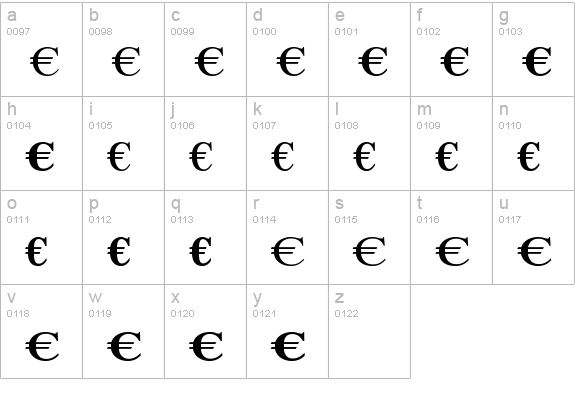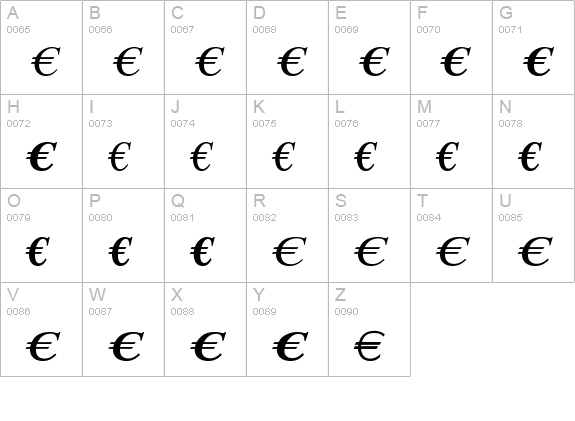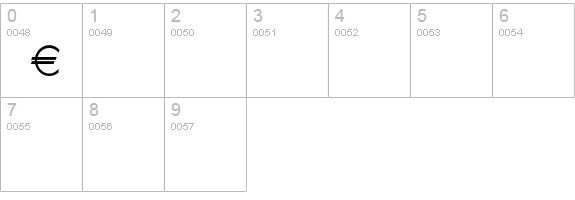
EuroSerifEF-One is a sophisticated and elegant serif font that exudes timeless charm and versatility. With its sleek lines and classic design, this font is perfect for a wide range of design projects, from branding and marketing materials to editorial layouts and invitations. The EuroSerifEF-One font strikes the perfect balance between tradition and modernity, making it a versatile choice for both print and digital applications. What makes EuroSerifEF-One even more appealing is that it is available for free download at FontsMarket.com. This means that you can easily access this high-quality font without any cost, making it a valuable addition to your font library. Whether you are a professional designer looking for a new go-to font or a hobbyist seeking to elevate your projects, EuroSerifEF-One is sure to impress with its refined aesthetic and ease of use. Download it today and add a touch of sophistication to your designs!